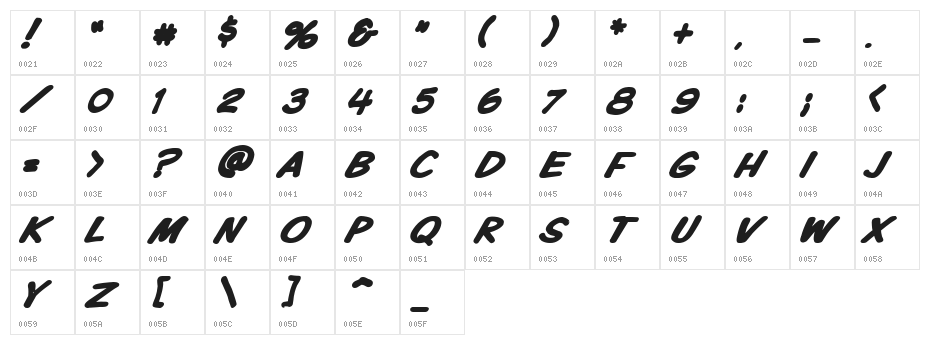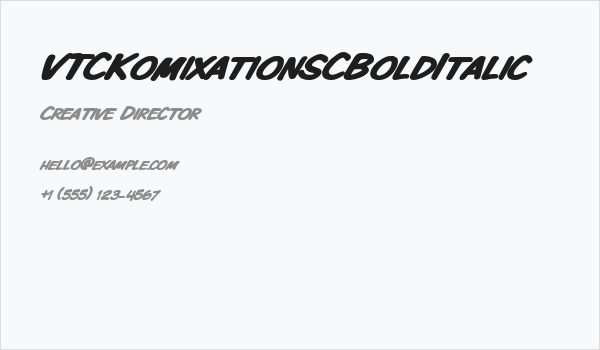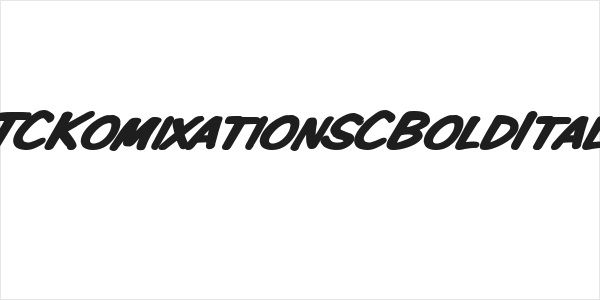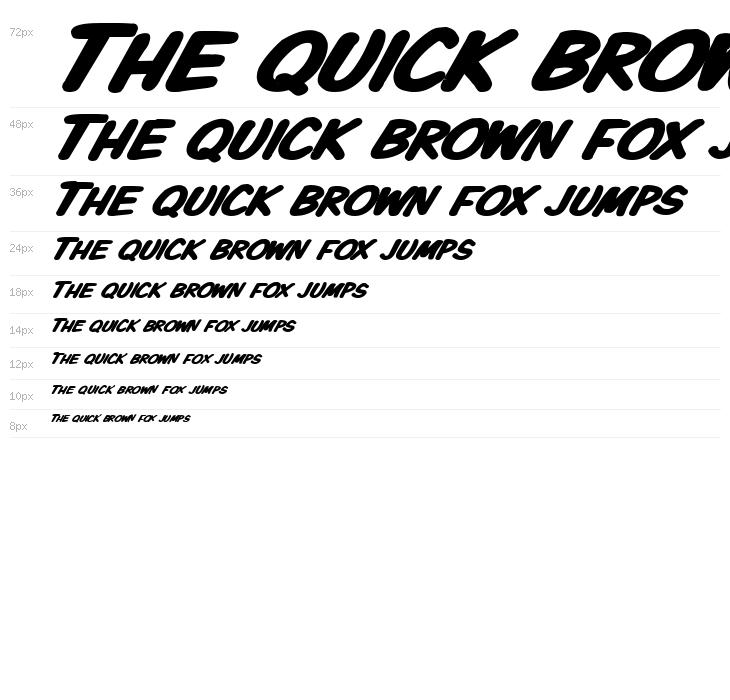
VTCKomixationSCBoldItalic Font
VTCKomixationSCBoldItalic Description
This font features a bold and dynamic style with a playful and energetic flair. The letters are italicized, giving them a forward-leaning motion that suggests speed and movement. Each character is robust and thick, with rounded edges that soften the overall appearance, making it approachable and friendly. The font maintains a consistent weight throughout, ensuring readability even at smaller sizes. Its boldness and unique style make it stand out, ideal for capturing attention in various design contexts. The numbers and special characters are equally bold and maintain the same energetic style, ensuring consistency across all text elements.
| Overall Style | Playful, Energetic, Bold |
| Proposed Projects | Ideal for comic book titles, playful branding, children's book covers, and eye-catching posters. |